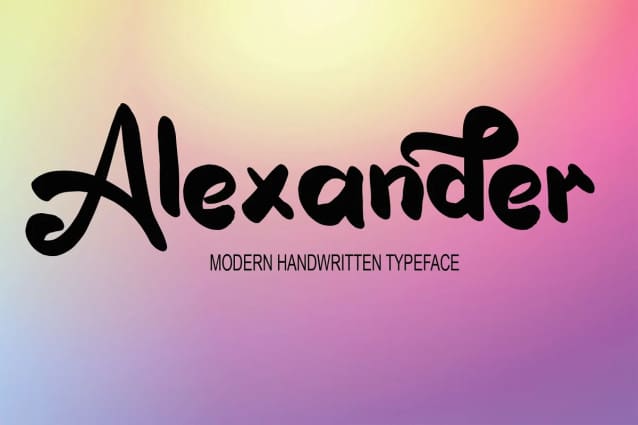
Alexander Font
Alexander Font is a font written by hand using a tablet. This is a simple typeface but was written very carefully. It can be used for websites, wedding invitations, business cards, signatures, and advertisements, be it product advertisements or other advertisements. Even though it looks simple, this font still looks cool and stylish.